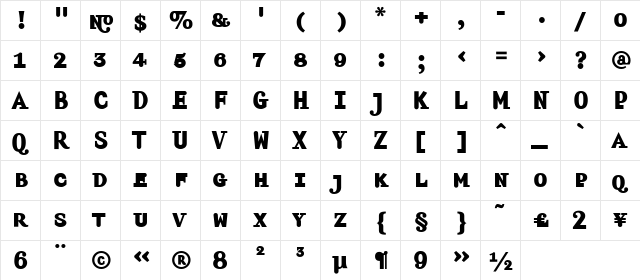
Amplifier Bold
| Foundry | [T- ] Chicago, Illinois & Frank Heine, Designer |
Design Context for Amplifier Typeface
Amplifier offers clean, dependable letterforms without strong stylistic allegiance, making it a practical choice for designers who need flexibility. The heavy weight commands attention and anchors typographic hierarchies.